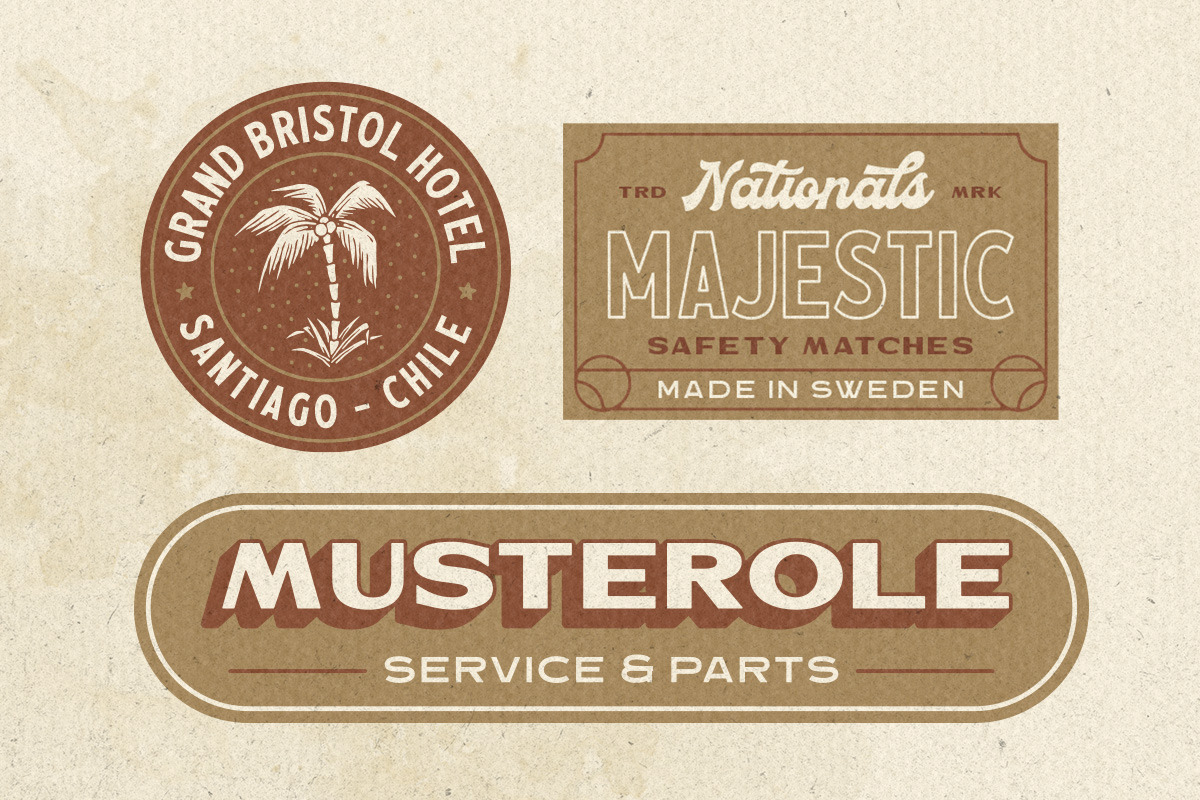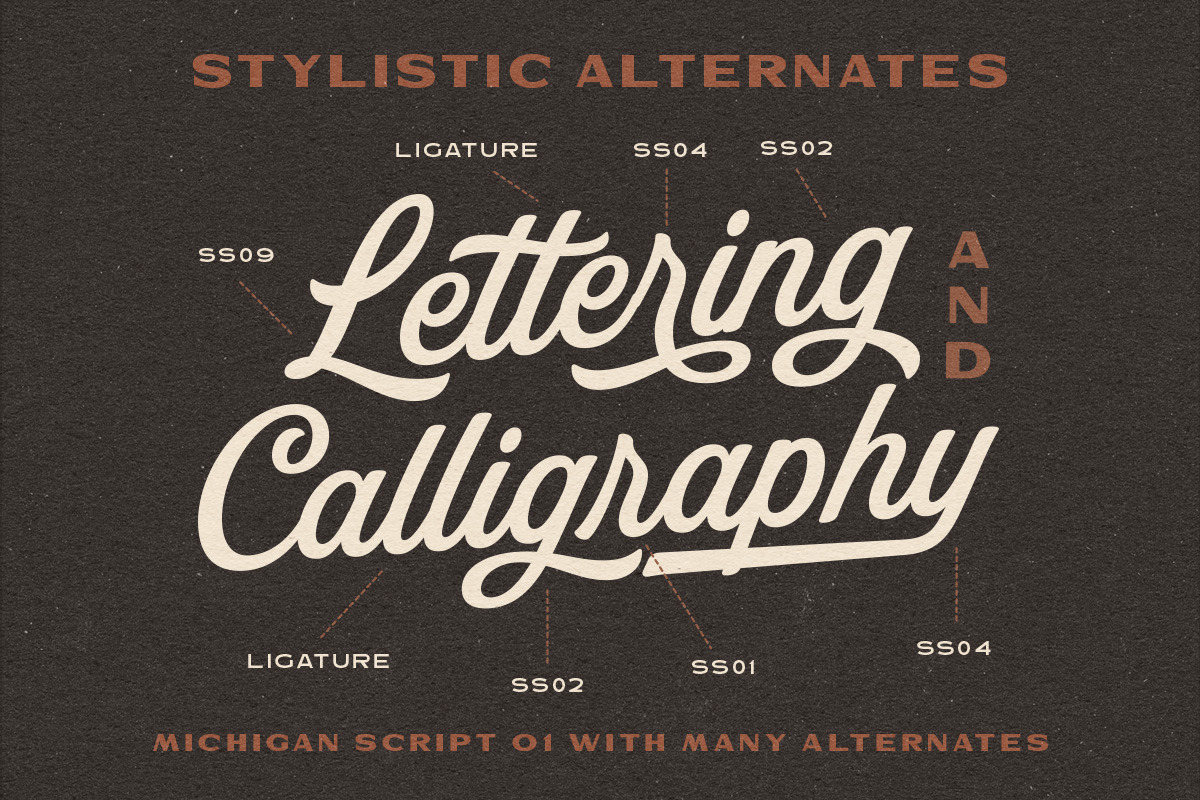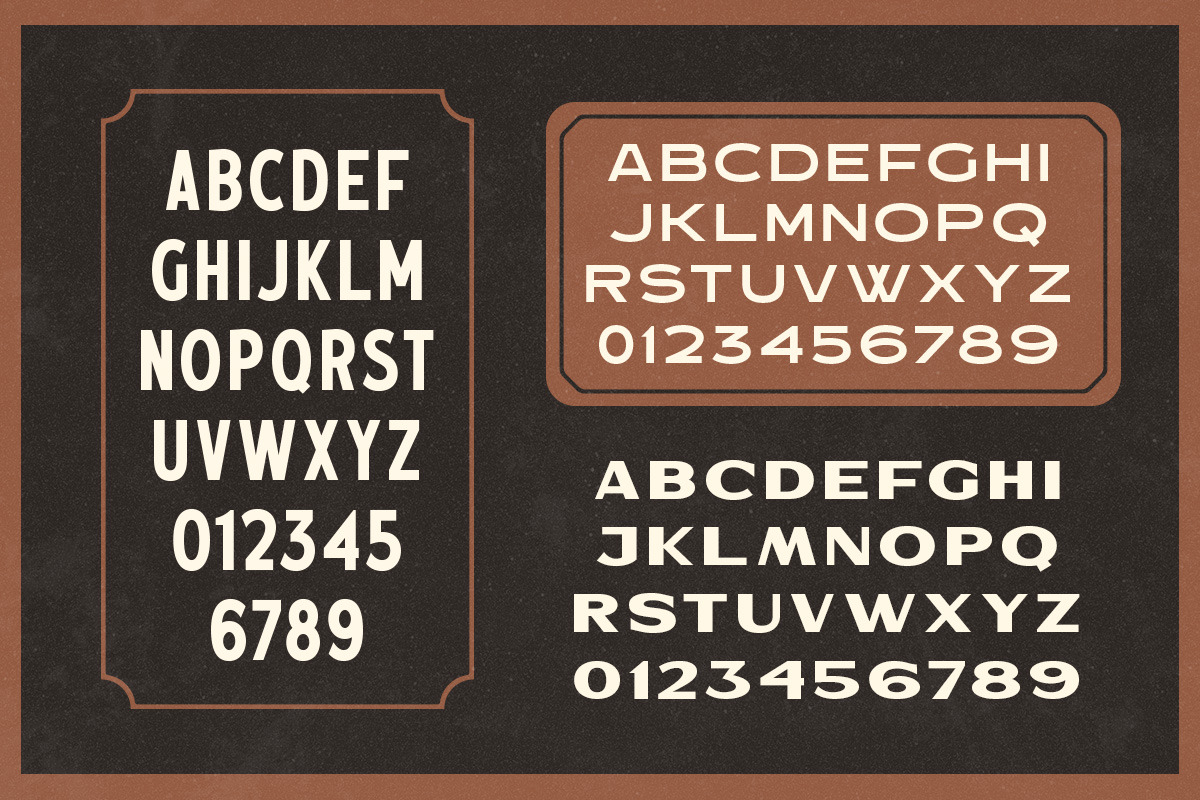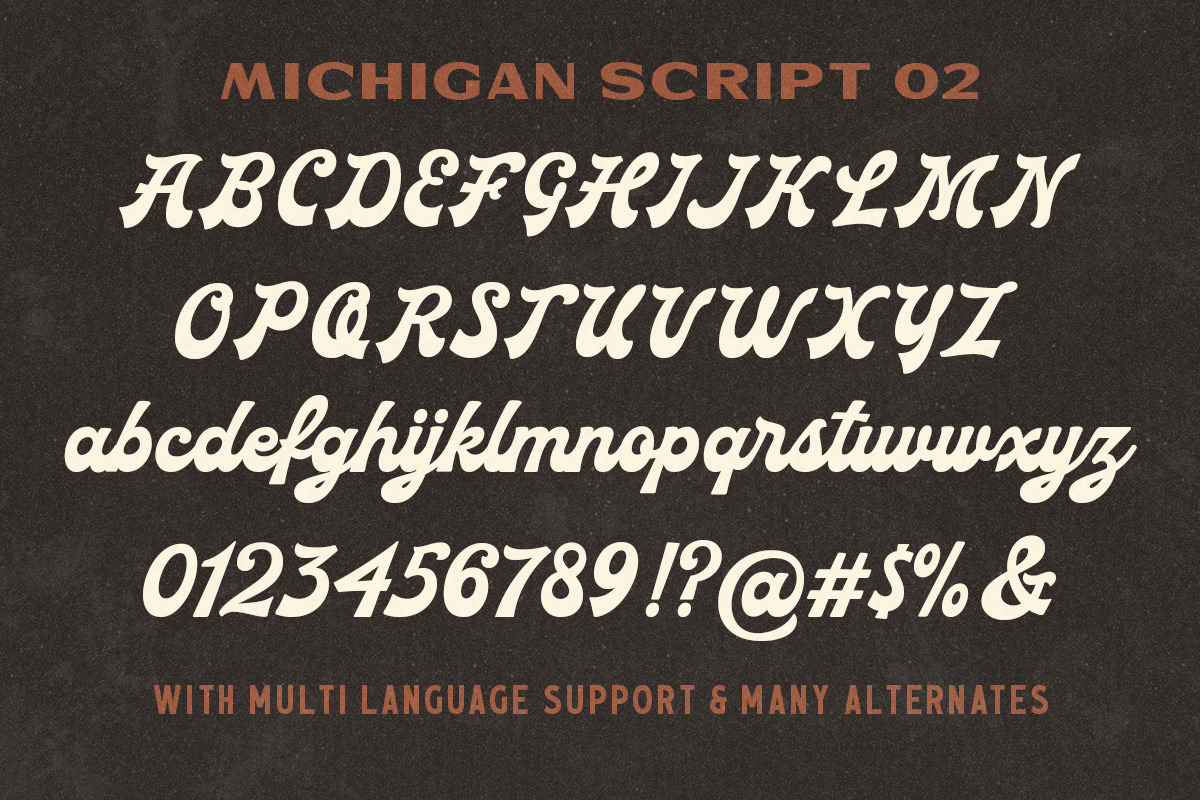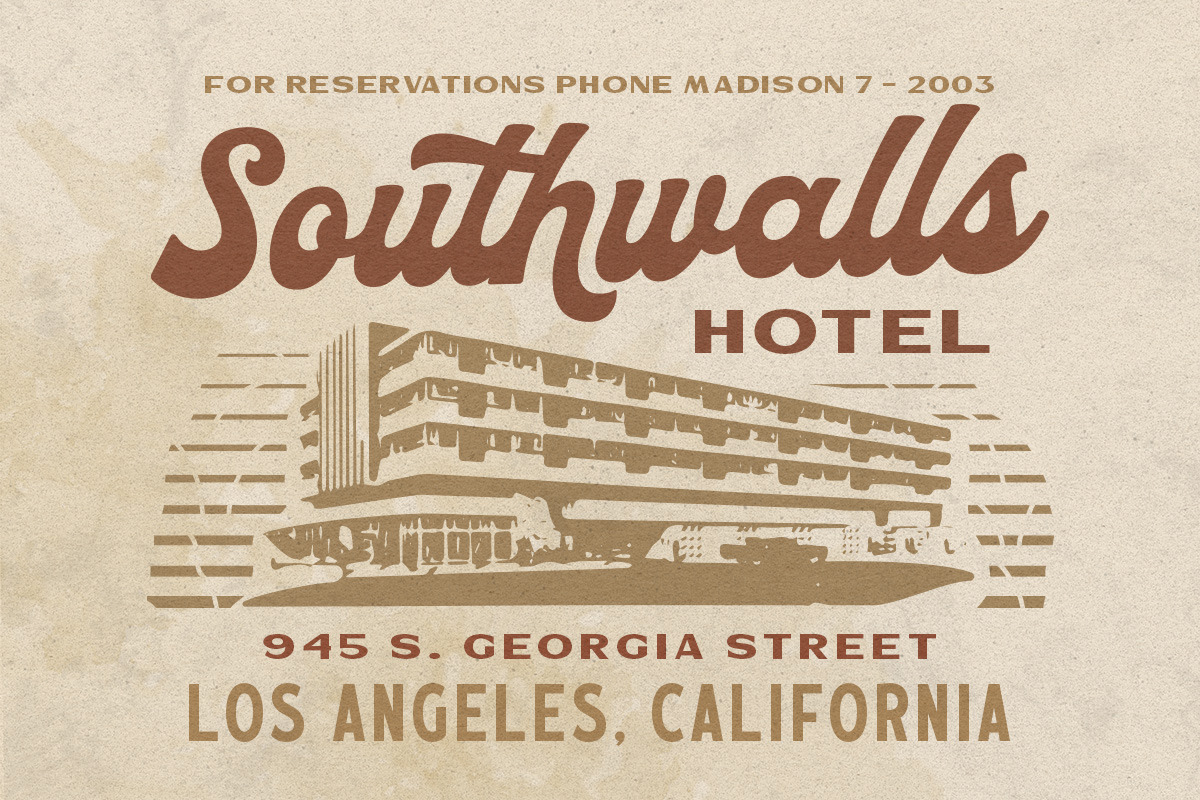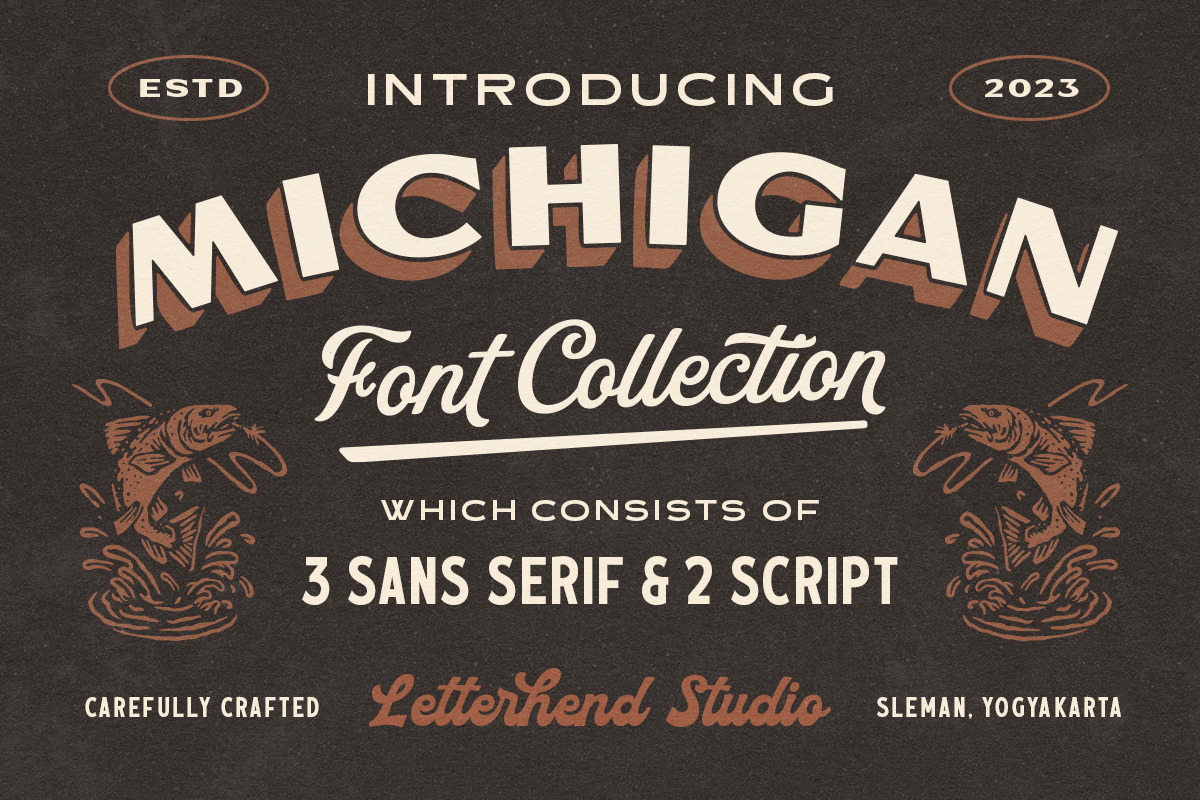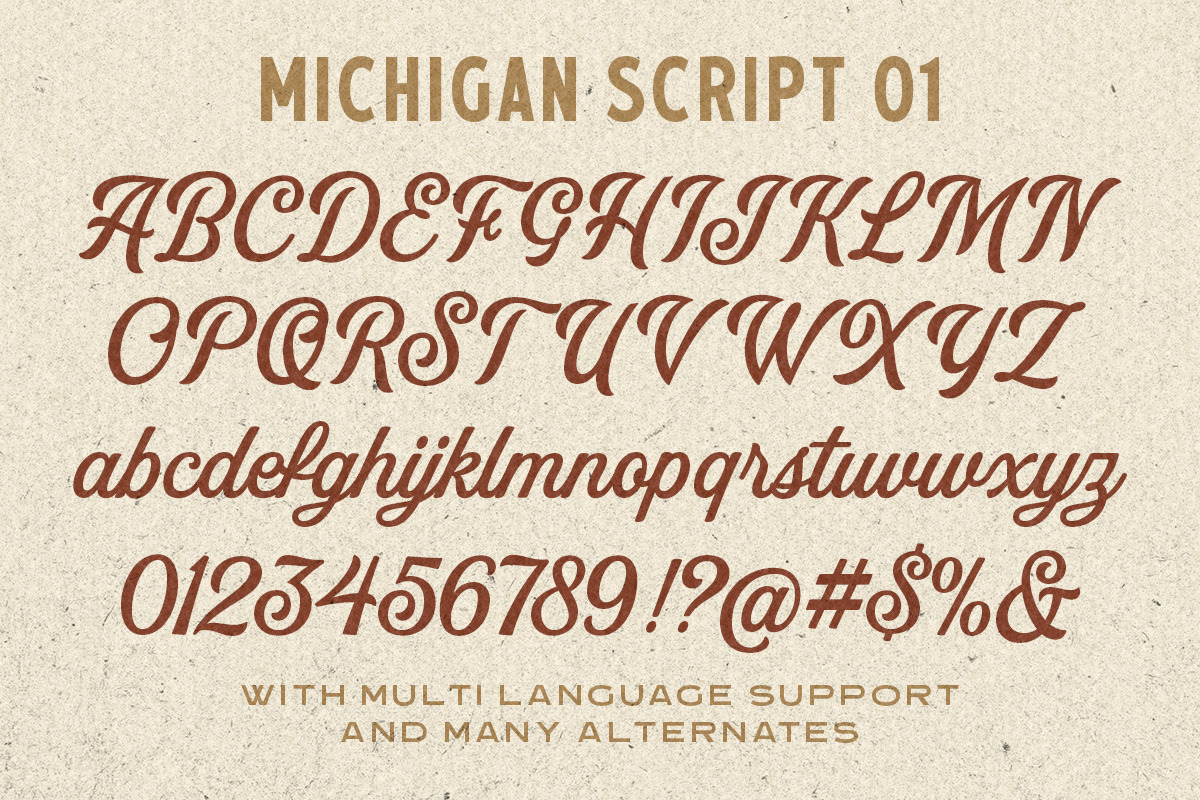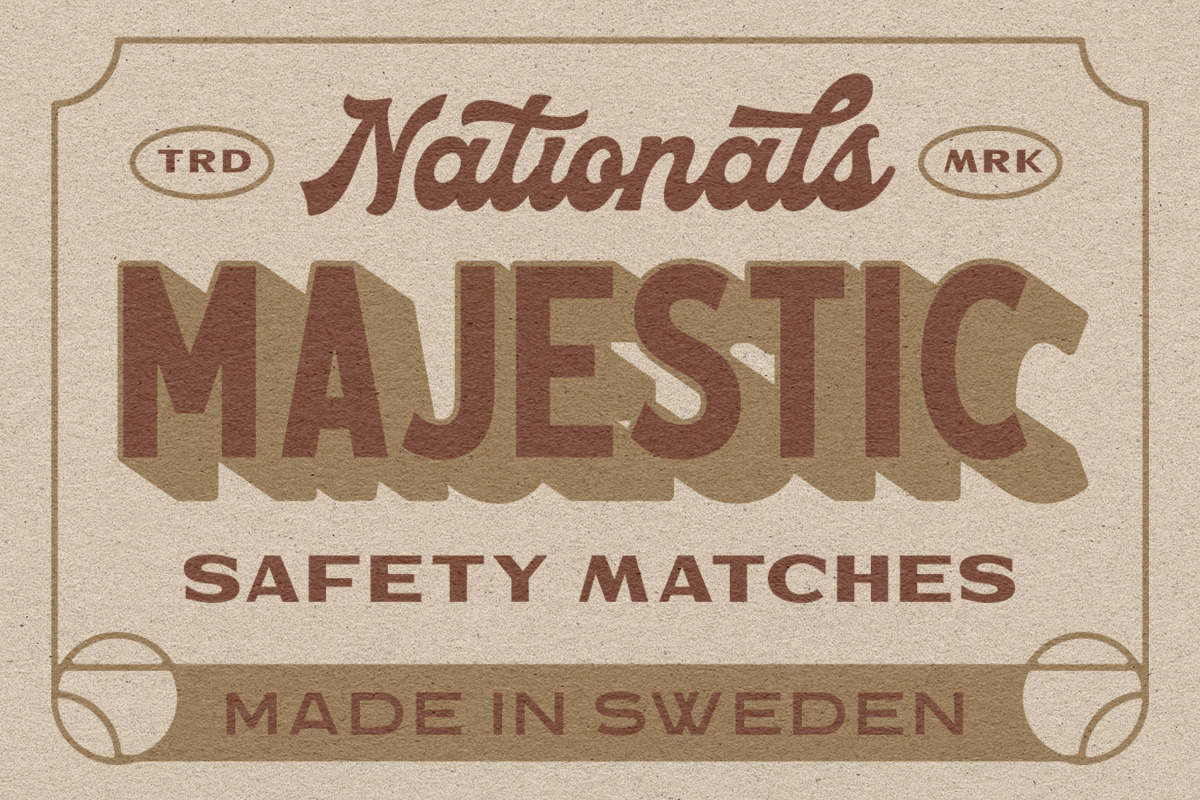
MIchigan - Font Collection
Skip the font dilemma and meet your design hero – Michigan This collection packs a punch with 5 fonts in one buy. Enjoy 2 scripts and 3 sans- each rocking its own unique style! It's simplifying your design decisions!
This font perfectly made to be applied especially in logo, and the other various formal forms such as invitations, labels, logos, magazines, books, greeting / wedding cards, packaging, fashion, make up, stationery, novels, labels or any type of advertising purpose.